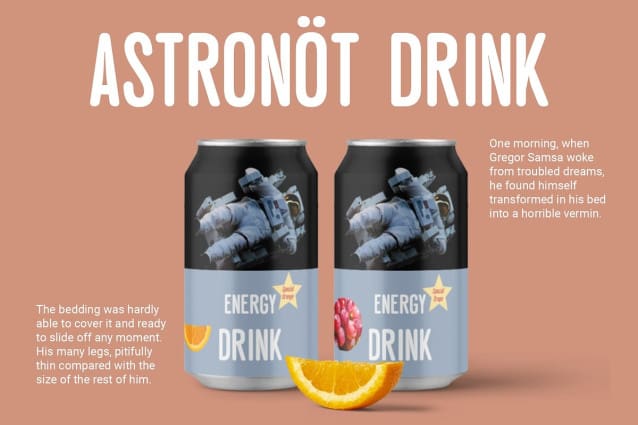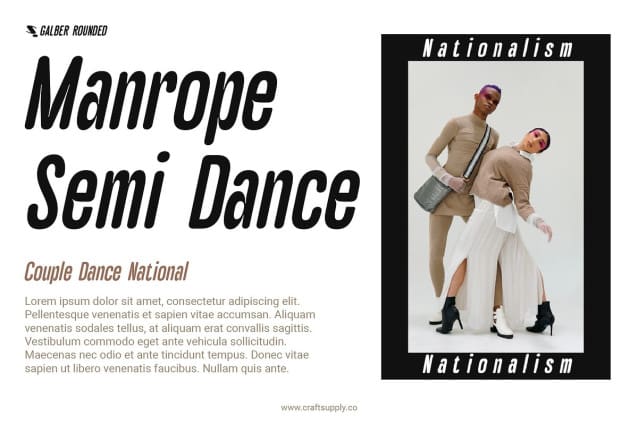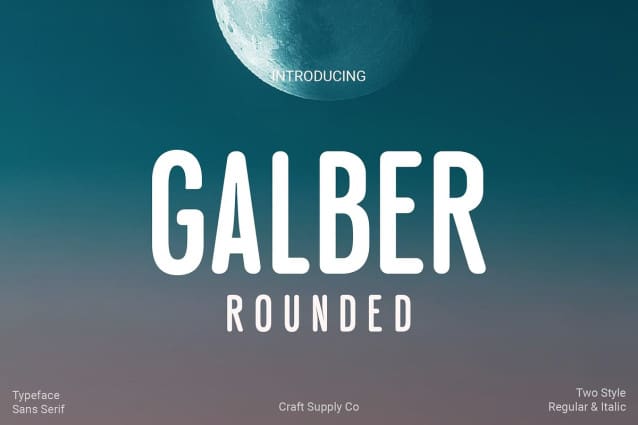
Galber Rounded Font
Galber Rounded Font: A Friendly Sans Serif. Soft and Inviting Galber Rounded features low contrast sans serif and rounded stem terminals, exuding a welcoming vibe. Its soft edges create a friendly and approachable feel, making it ideal for various design projects.
Condensed Elegance With a condensed design, This font strikes a balance between elegance and space efficiency. Its streamlined appearance adds a touch of sophistication while maximizing legibility in compact layouts.
Versatile Usage Suitable for a wide range of applications, This font adapts effortlessly to diverse design needs. From web interfaces to branding materials, its friendly demeanor and condensed form enhance visual appeal.
Subtle Charm This font subtle charm lies in its understated details and gentle curves. While its low-contrast nature promotes readability, its rounded terminals inject warmth and personality into the design.
Approachable Elegance This font embodies approachable elegance with its friendly vibe, condensed form, and rounded details. Whether used for digital interfaces or print materials, it offers versatility and readability with a touch of subtle charm.